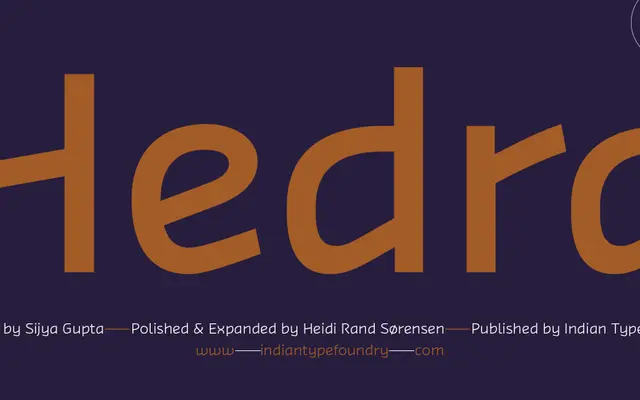
A five-weight geometric sans from Indian Type Foundry, spanning ExtraLight to Bold without italics or condensed cuts.
A compact geometric sans family available in five weights from ExtraLight to Bold. The range covers everyday text and mid-weight display needs, though the absence of italics and condensed variants limits its flexibility for extended typographic systems. Sold individually or as a complete five-font package.
The clean, regular letterforms and minimal stroke contrast visible in the specimen point to a geometric sans-serif construction, consistent with ITF's classification approach for this style.